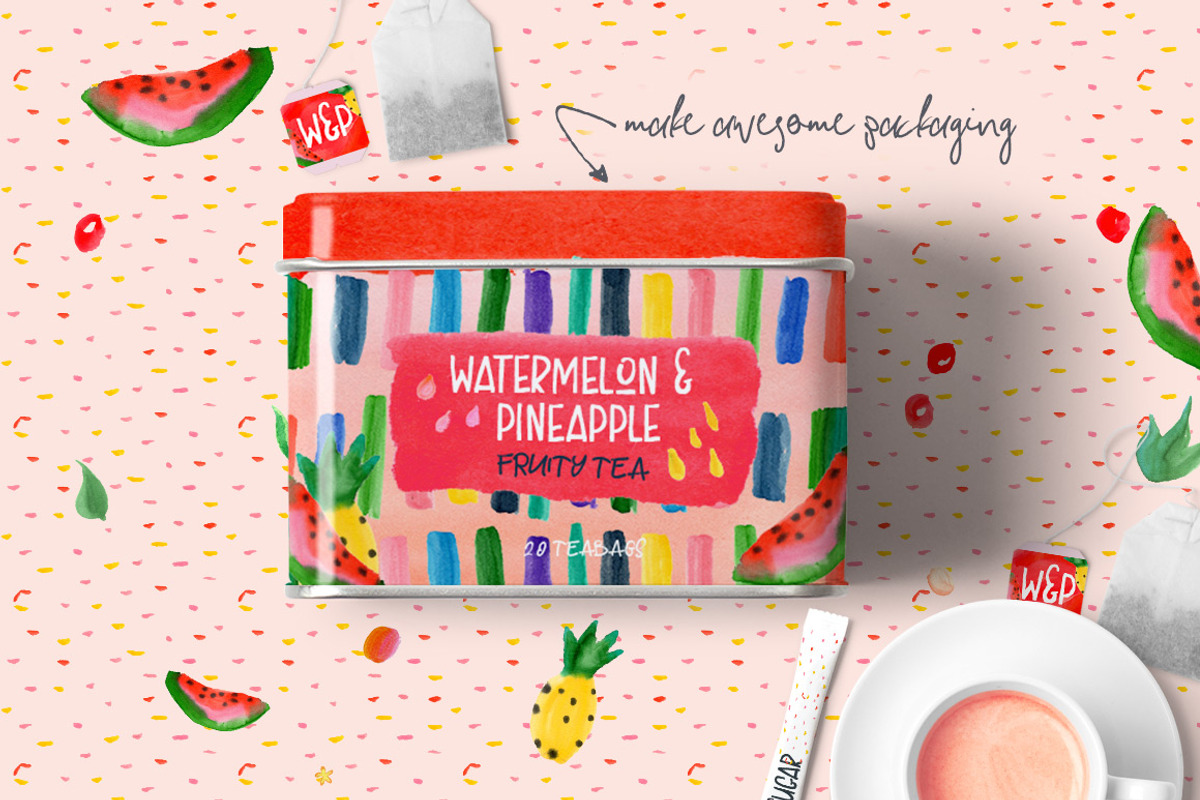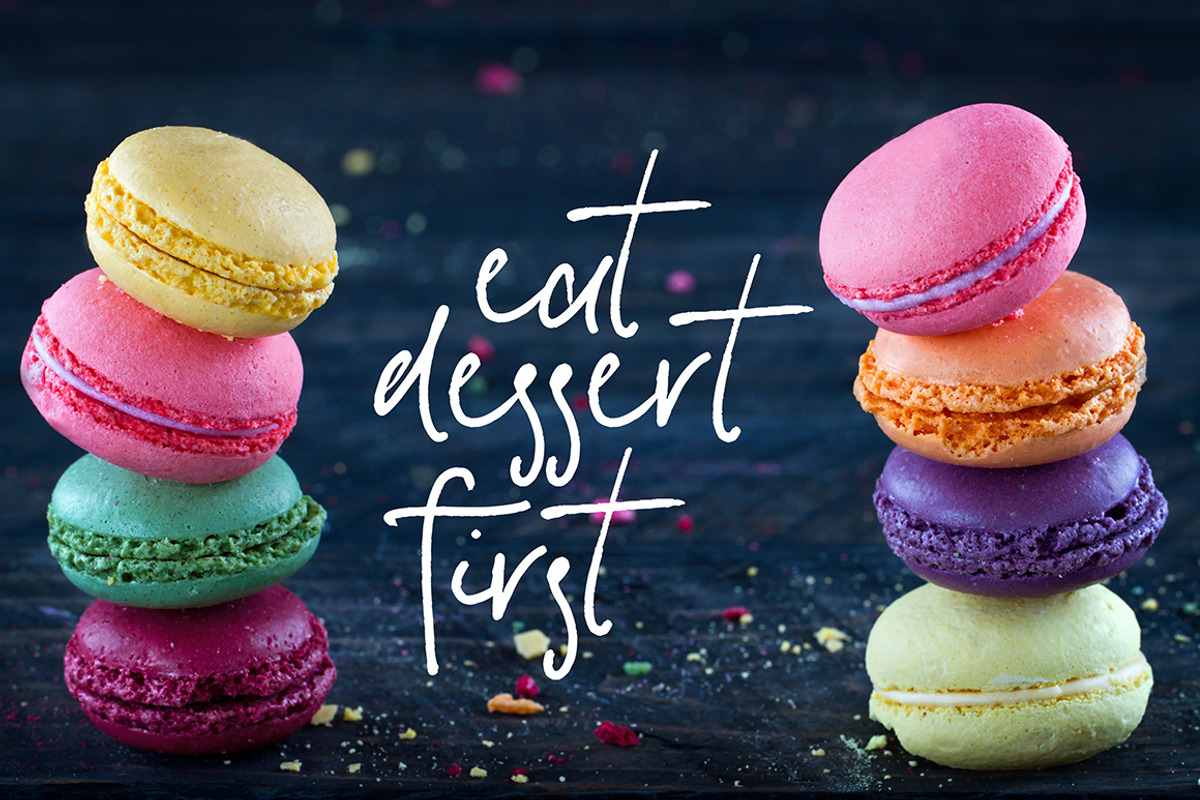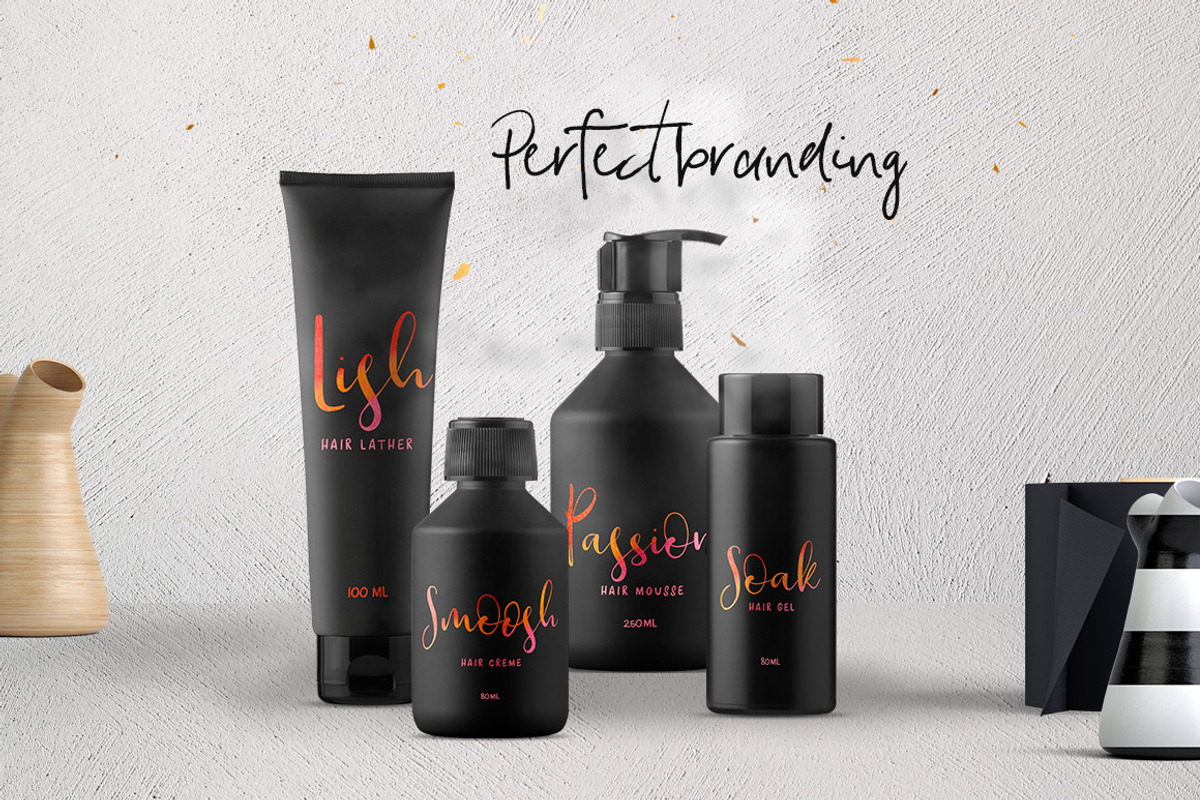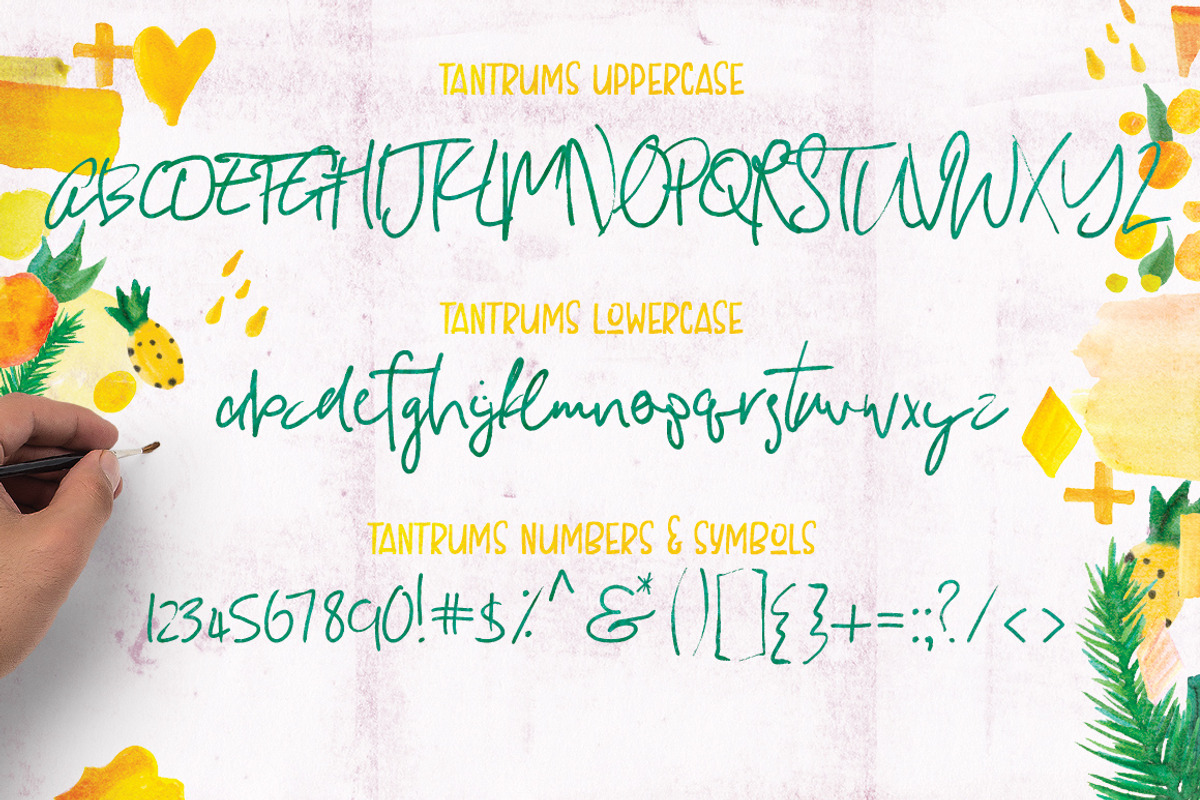
Tantrums Hand Writing Font
Tantrums Hand Writing Font by Creativeqube Design is a font selected for branding, posters, packaging, typography.
Why Tantrums Hand Writing Font is worth a look
Tantrums Hand Writing Font by Creativeqube Design fits naturally into Branding, posters, packaging, typography.